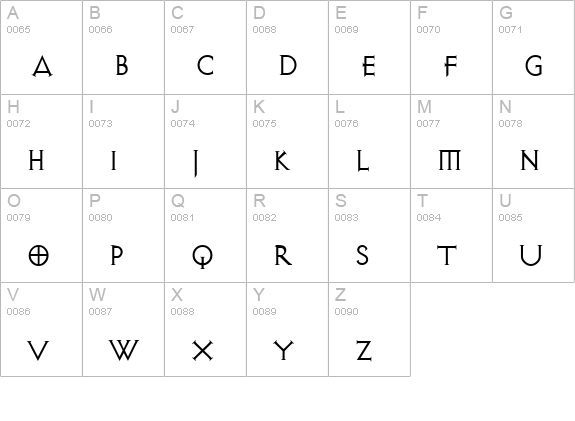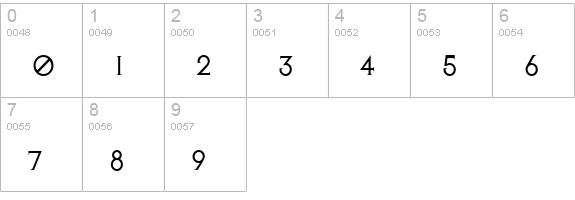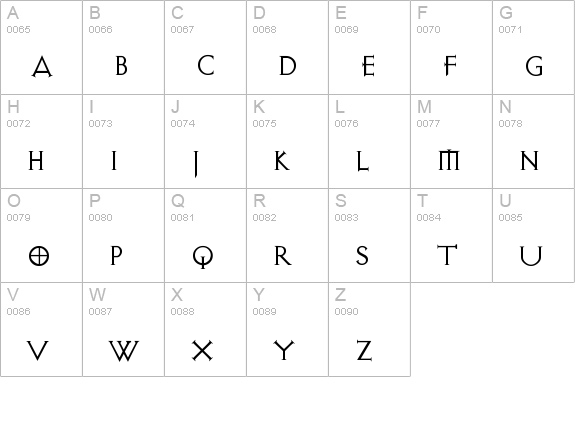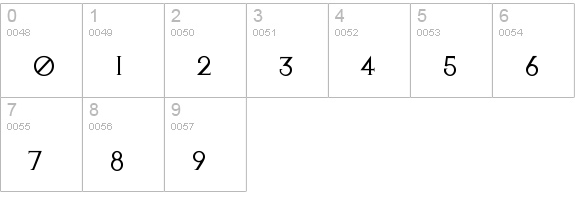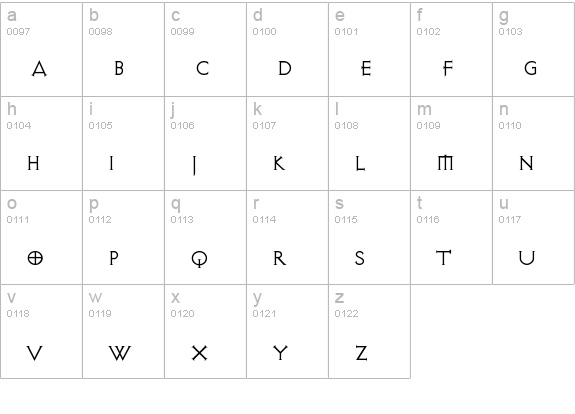
AvalonQuest Font Details
AvalonQuest font is a beautifully crafted typeface that exudes elegance and sophistication. With its intricate details and graceful curves, this font is perfect for adding a touch of magic to your designs. AvalonQuest font is versatile and can be used for various projects, from invitations to branding and everything in between. The best part? AvalonQuest font is completely free! You can download it at FontsMarket.com and start using it in your projects right away. Don't miss out on this stunning font that will elevate your designs to a whole new level.